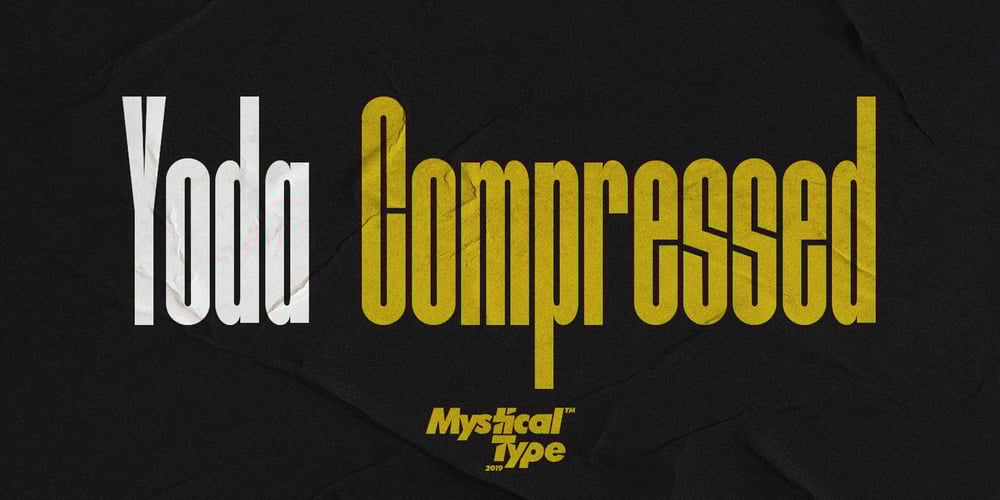
Yoda
Yoda font
Yoda Font Family was designed by Candi Erwanto and published by MysticalType. Yoda contains 10 styles and family package options. Yoda is a super-compressed font family with some suitable special characters. Perfect for posters, display copies, headlines, magazine header copies. It comes in 10 weights ranging from extra light to black so it is versatile. The extra lightness can give you great height because of how narrow it is.